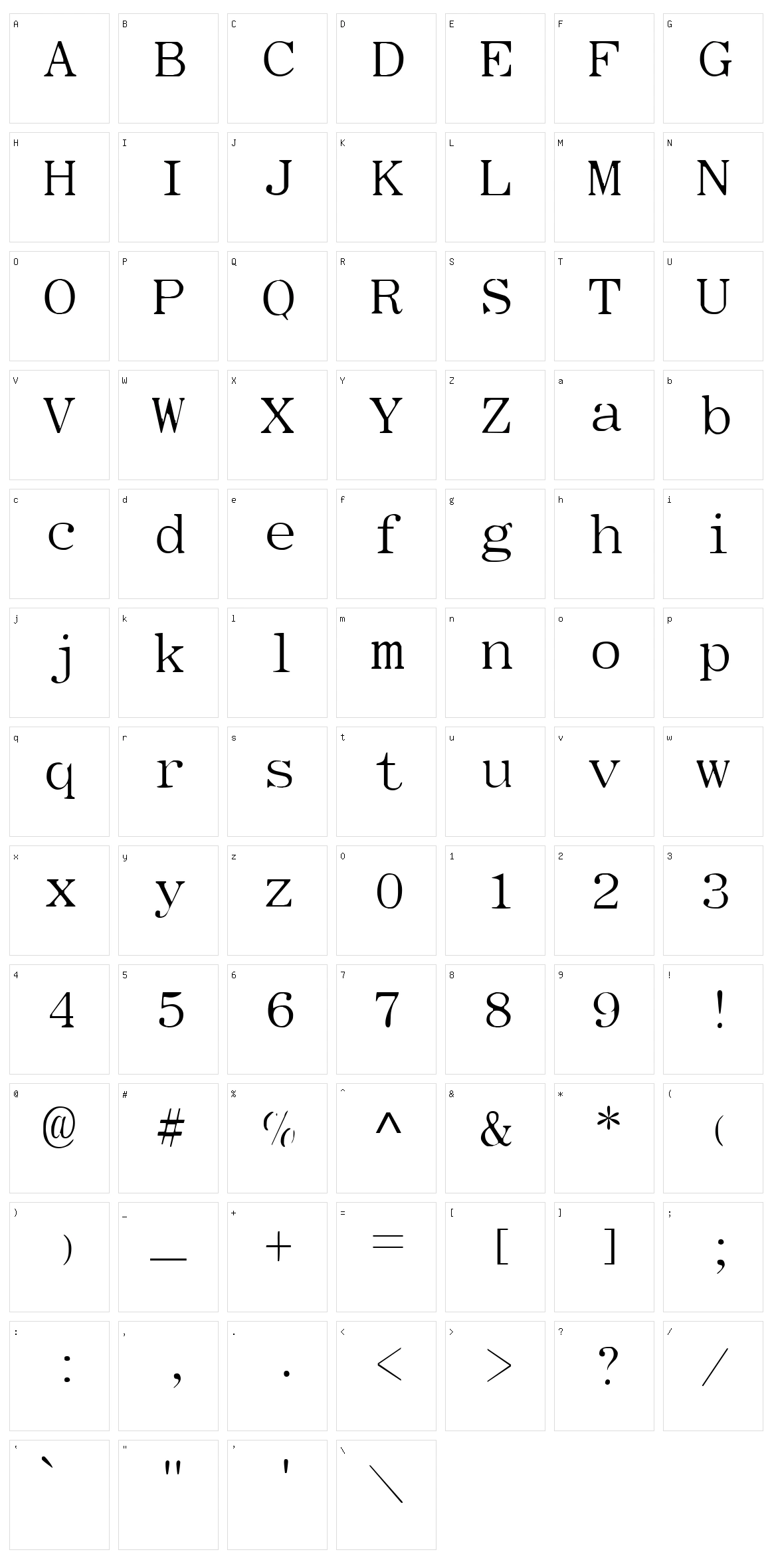
The free font Type Wheel is carefully designed by Johan Holmdahl, showcasing a thoughtful balance of creativity and usability and falls under the Typewriter font style. When you download the ZIP file, it contains only 17.81 KB of font files, making it lightweight and quick to download. Please review the license details below to understand permitted usage and distribution rights. If license information is not available, we recommend using this font for personal projects only or contacting the author directly for commercial usage permissions.